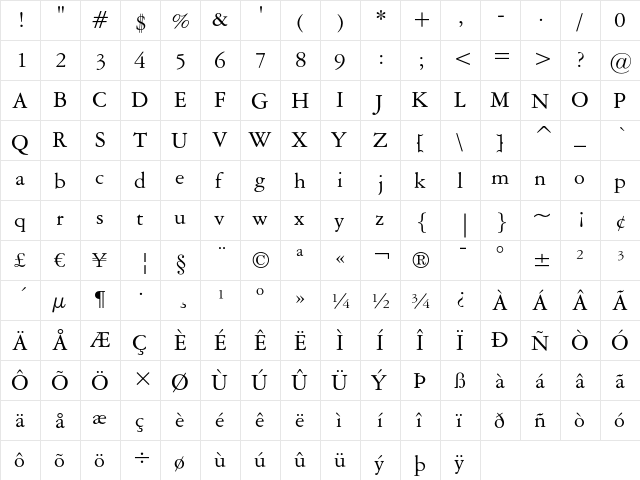
American Garamond Regular
Design Context for American Garamond Typeface
American Garamond is a composed and adaptable typeface that performs quietly and consistently across a wide range of design contexts.
Pro Tip: Pair American Garamond with a font of contrasting weight or personality to build a more expressive typographic hierarchy.